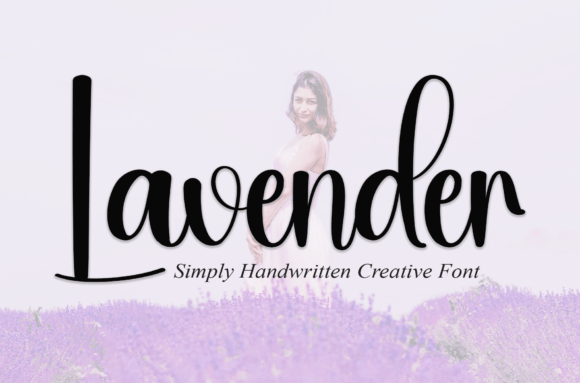
Looking for the perfect font to add a touch of sweetness and friendliness to your design projects? Look no further than Lavender Font! This beautiful script font, created by the talented William Jhordy, is the ideal choice for anyone looking for the best font for calendar design.
Lavender Font is a fresh and neat handwriting font that exudes a fun and playful vibe. Its whimsical, yet elegant style makes it perfect for a wide range of design projects, from wedding invitations to greeting cards and more. Whether you're looking to create a charming and memorable design or simply add a fun touch to your projects, Lavender Font is the perfect choice.
With its eye-catching, script-style lettering and stylish curves, Lavender Font is sure to make a lasting impression on anyone who sees it. Its unique and creative design will help your projects stand out from the crowd and grab the attention of potential customers or clients.